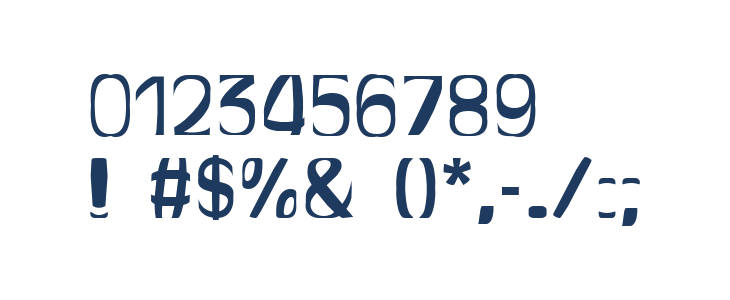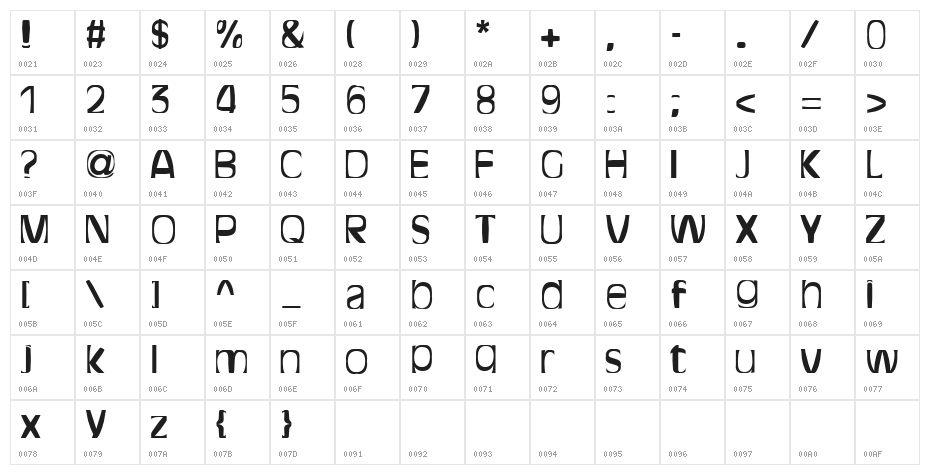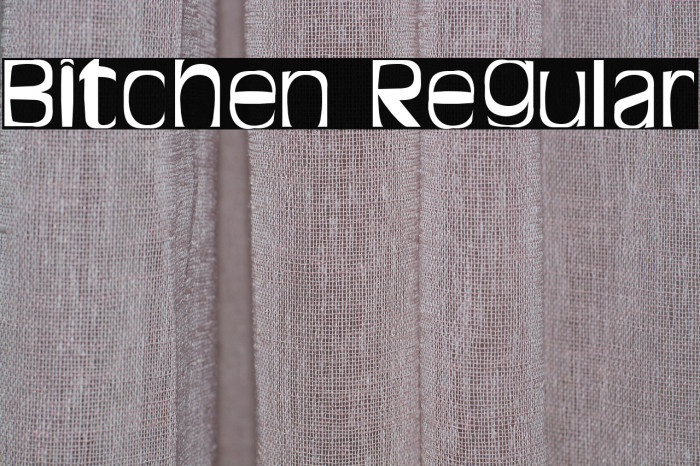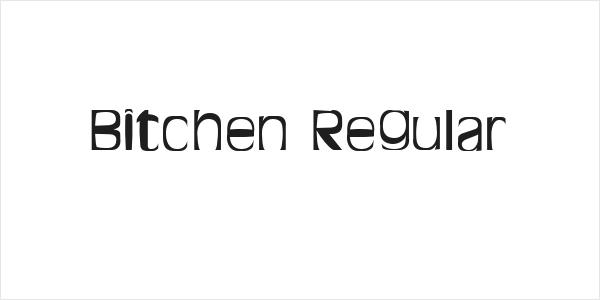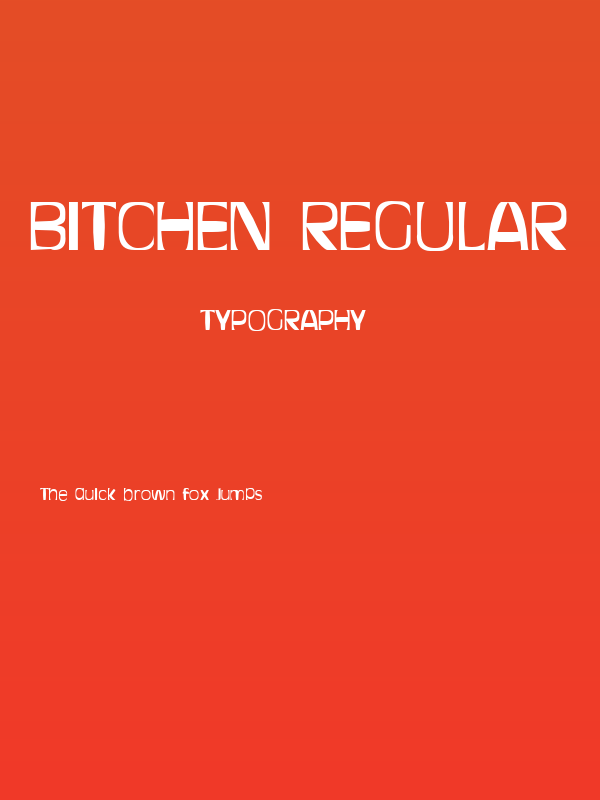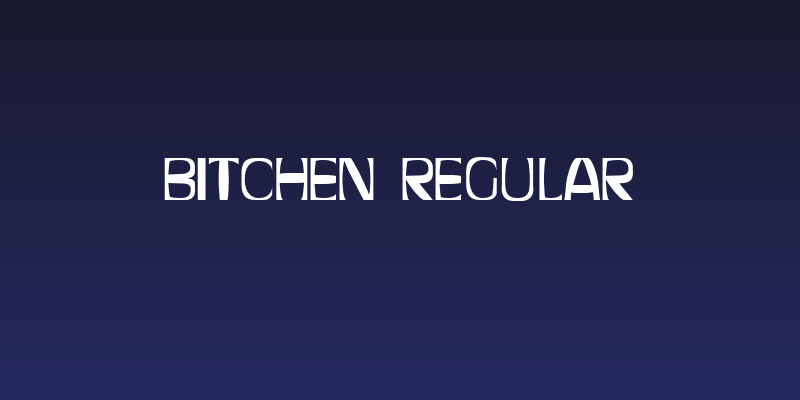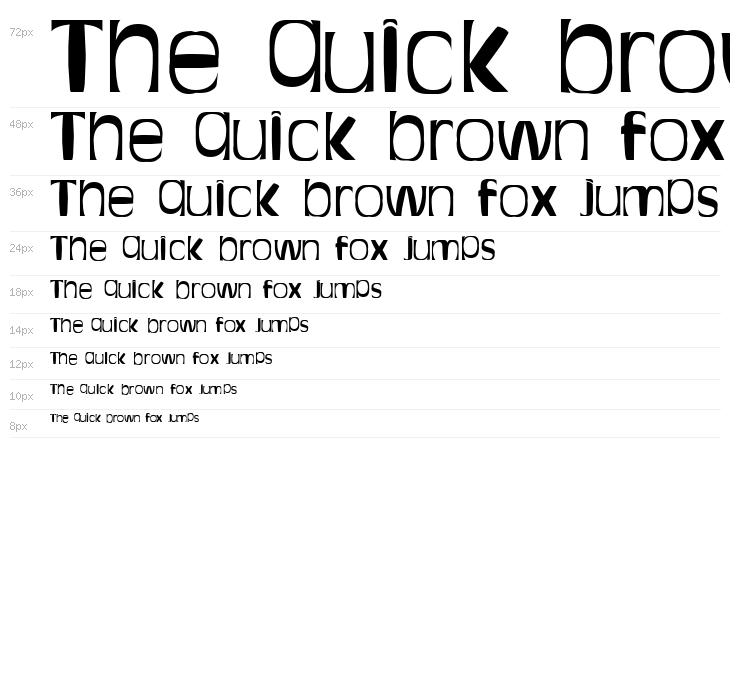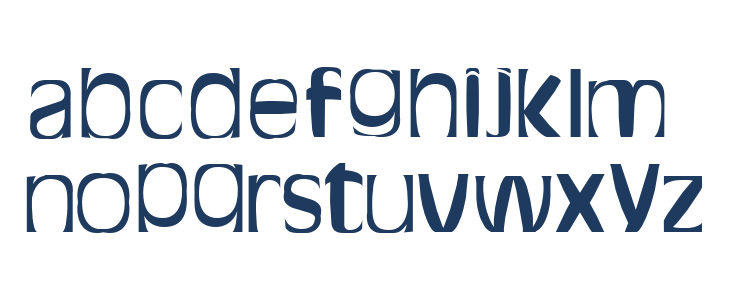
Bitchen Regular Font
Bitchen Regular Description
This font features a bold and dynamic design with a modern twist. The uppercase letters exhibit a unique blend of sharp angles and smooth curves, creating a striking visual impact. The lowercase letters maintain a consistent style, offering a harmonious flow. Numbers are bold and easily readable, while special characters are designed to match the overall aesthetic. The font's playful yet sophisticated appearance makes it suitable for a variety of creative projects.